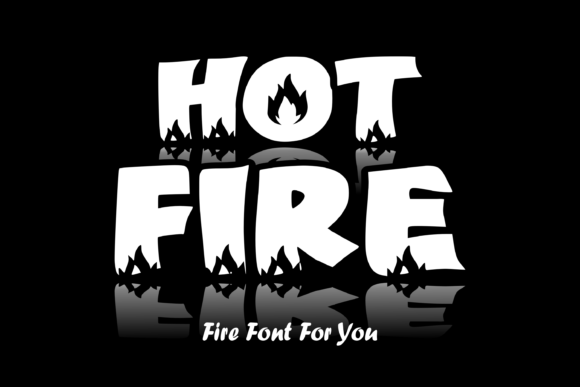
For designers, this spark is what sets them apart. And now, we’re excited to introduce the Hot Fire Font, a game-changing tool that will help you unleash your inner creative genius. This unique font is designed to ignite your thoughts and elevate your designs to new heights. With the Hot Fire Font, you’ll be able to breathe life into your projects and bring your vision to reality.
Whether you’re a seasoned designer or just starting out, the Hot Fire Font is an invaluable asset that will help you stand out in a crowded industry. Its versatility and style make it the perfect addition to any design project, guaranteed to leave a lasting impression.
Hot Fire Font Key Features
- Font Style: A modern, bold, and fiery sans-serif font with a unique design that sets it apart from other fonts.
- Unique Characteristics: Features a distinctive, fiery flair in the letterforms, making it perfect for designs that require a bold and eye-catching look.
Hot Fire Font Review
Overall, I think the “Hot Fire Font” has some nice qualities, but it also has some limitations that might make it less suitable for certain projects. ✨
- The font’s energetic and playful feel makes it perfect for projects that need a bold and eye-catching design.
- The font’s wide range of sizes and styles makes it versatile and easy to use.
- The font’s bold lines and geometric shapes give it a modern and edgy look.
- ⚠️ The font can be quite overwhelming and may be too much for certain designs or projects.
- ⚠️ The font’s bold lines and geometric shapes can make it difficult to read in certain situations, such as at small sizes or in complex layouts.
- ⚠️ The font’s limited character set may make it less suitable for projects that require a wide range of characters, such as language support or technical writing.
The “Hot Fire Font” is a fun and energetic font that can add a lot of excitement to a project. However, it’s not the best choice for every project, and it may require some careful consideration to use it effectively. With its bold lines and geometric shapes, it’s perfect for modern and edgy designs, but it may not be the best choice for more traditional or subtle projects.
The Hot Fire Font is ideal for creating bold, attention-grabbing text in designs that require a sense of energy and excitement. Use it in:
- Social media graphics and ads
- Event promotions and flyers
- Product packaging and branding
Remember to use the font in moderation, as it can be overwhelming if used too extensively.